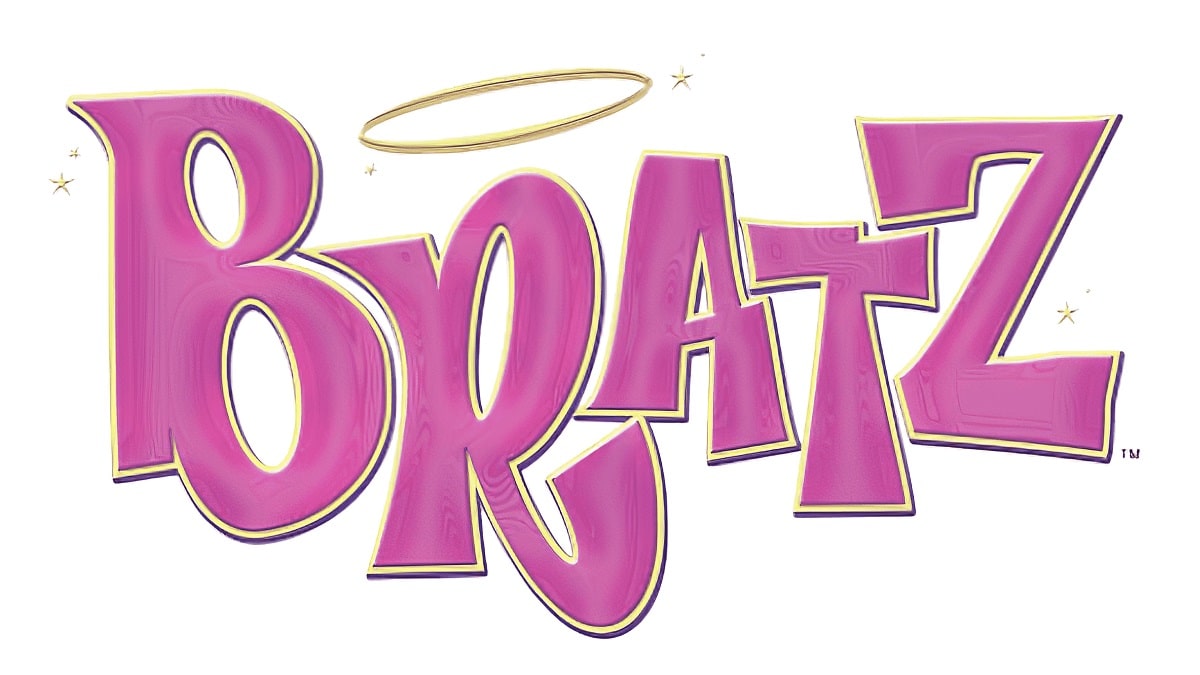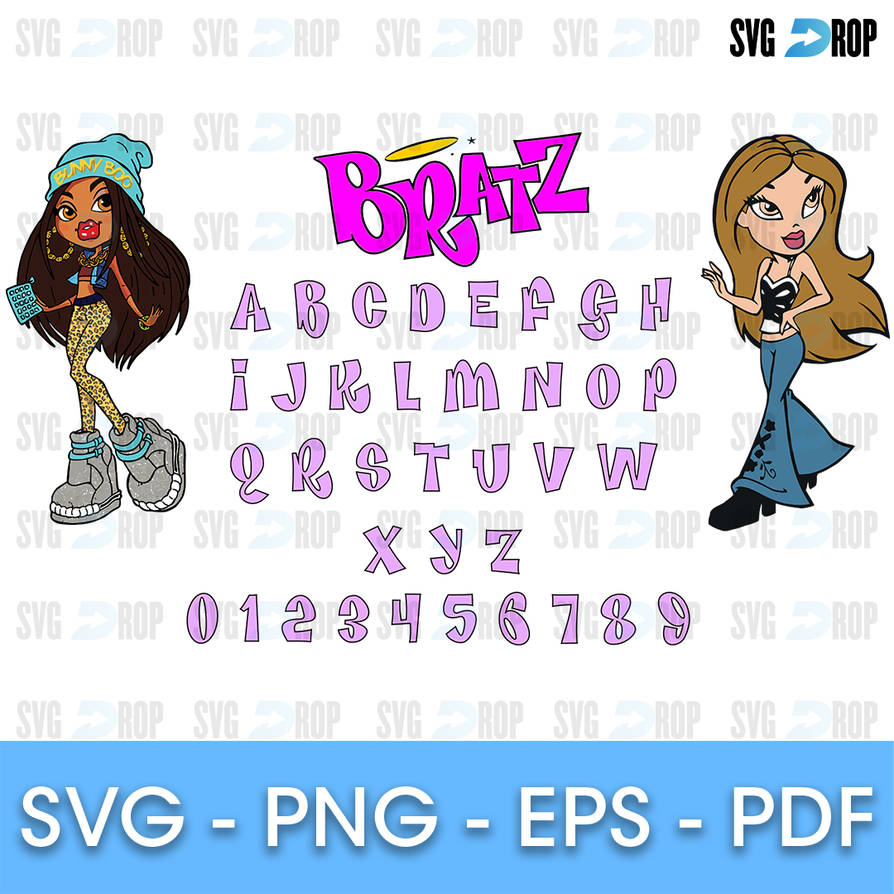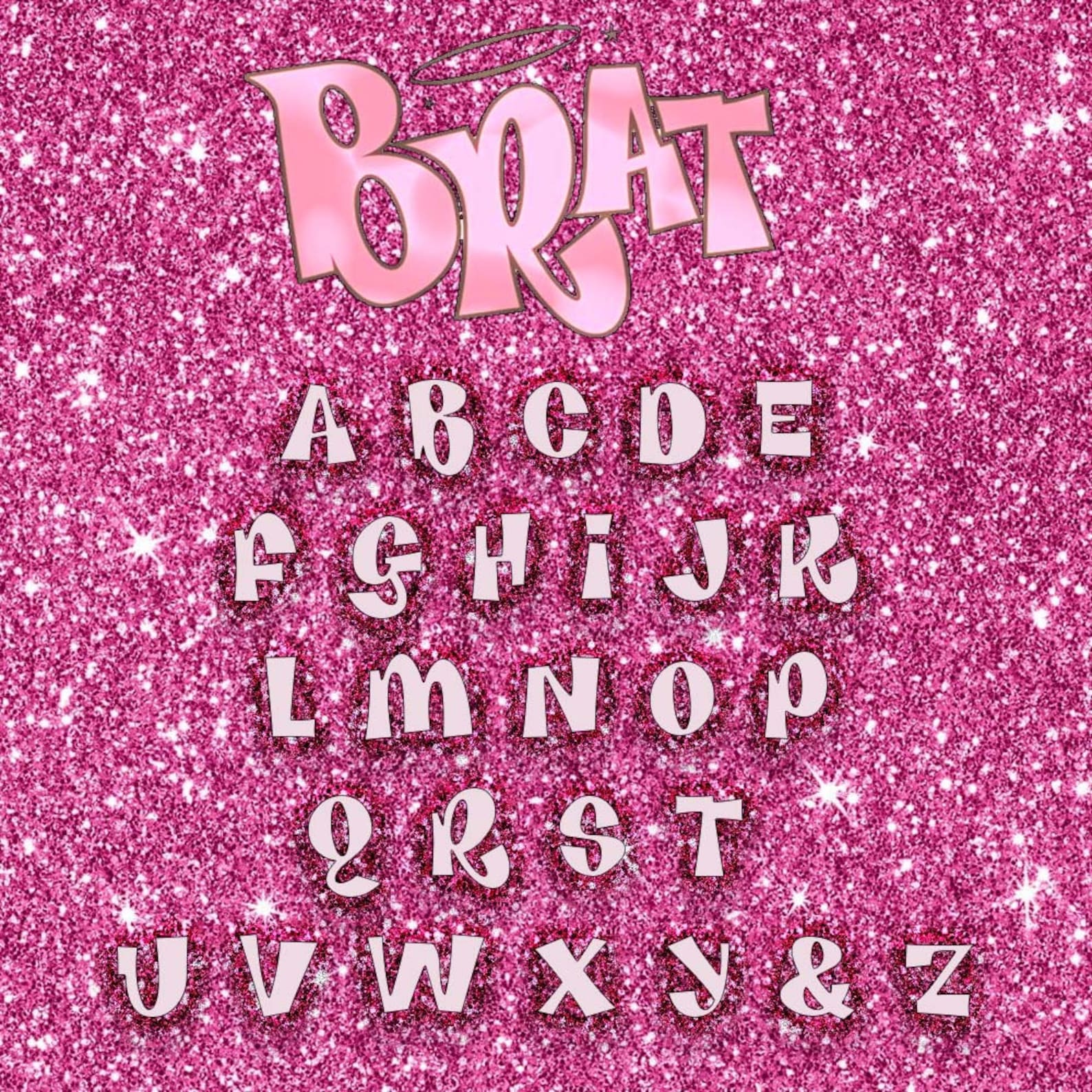
Bratz Font Free
Bratz Font Free - Download free fonts like funkhouse,. Web find the name of the font used for the bratz dolls and similar fonts to the bratz logo. The bratz font is a funky decorative font inspired by the popular lettering of the bratz dolls. It is a fun and. Web uses of bratz font.
Download free fonts like funkhouse,. Web uses of bratz font. It is a fun and. Web find the name of the font used for the bratz dolls and similar fonts to the bratz logo. The bratz font is a funky decorative font inspired by the popular lettering of the bratz dolls.
The bratz font is a funky decorative font inspired by the popular lettering of the bratz dolls. Download free fonts like funkhouse,. Web find the name of the font used for the bratz dolls and similar fonts to the bratz logo. It is a fun and. Web uses of bratz font.
It is a fun and. The bratz font is a funky decorative font inspired by the popular lettering of the bratz dolls. Download free fonts like funkhouse,. Web uses of bratz font. Web find the name of the font used for the bratz dolls and similar fonts to the bratz logo.
Download free fonts like funkhouse,. The bratz font is a funky decorative font inspired by the popular lettering of the bratz dolls. It is a fun and. Web uses of bratz font. Web find the name of the font used for the bratz dolls and similar fonts to the bratz logo.
The bratz font is a funky decorative font inspired by the popular lettering of the bratz dolls. Download free fonts like funkhouse,. It is a fun and. Web uses of bratz font. Web find the name of the font used for the bratz dolls and similar fonts to the bratz logo.
Web find the name of the font used for the bratz dolls and similar fonts to the bratz logo. The bratz font is a funky decorative font inspired by the popular lettering of the bratz dolls. It is a fun and. Web uses of bratz font. Download free fonts like funkhouse,.
Web find the name of the font used for the bratz dolls and similar fonts to the bratz logo. The bratz font is a funky decorative font inspired by the popular lettering of the bratz dolls. It is a fun and. Download free fonts like funkhouse,. Web uses of bratz font.
Bratz Font and Logo Evolution HipFonts
Web find the name of the font used for the bratz dolls and similar fonts to the bratz logo. Download free fonts like funkhouse,. It is a fun and. The bratz font is a funky decorative font inspired by the popular lettering of the bratz dolls. Web uses of bratz font.
The bratz font is a funky decorative font inspired by the popular lettering of the bratz dolls. It is a fun and. Web find the name of the font used for the bratz dolls and similar fonts to the bratz logo. Download free fonts like funkhouse,. Web uses of bratz font.
The bratz font is a funky decorative font inspired by the popular lettering of the bratz dolls. Download free fonts like funkhouse,. It is a fun and. Web uses of bratz font. Web find the name of the font used for the bratz dolls and similar fonts to the bratz logo.
It is a fun and. The bratz font is a funky decorative font inspired by the popular lettering of the bratz dolls. Web uses of bratz font. Web find the name of the font used for the bratz dolls and similar fonts to the bratz logo. Download free fonts like funkhouse,.
Bratz Font Free Download Fonts Bee
Web uses of bratz font. Web find the name of the font used for the bratz dolls and similar fonts to the bratz logo. The bratz font is a funky decorative font inspired by the popular lettering of the bratz dolls. It is a fun and. Download free fonts like funkhouse,.
Web Uses Of Bratz Font.
Download free fonts like funkhouse,. The bratz font is a funky decorative font inspired by the popular lettering of the bratz dolls. It is a fun and. Web find the name of the font used for the bratz dolls and similar fonts to the bratz logo.